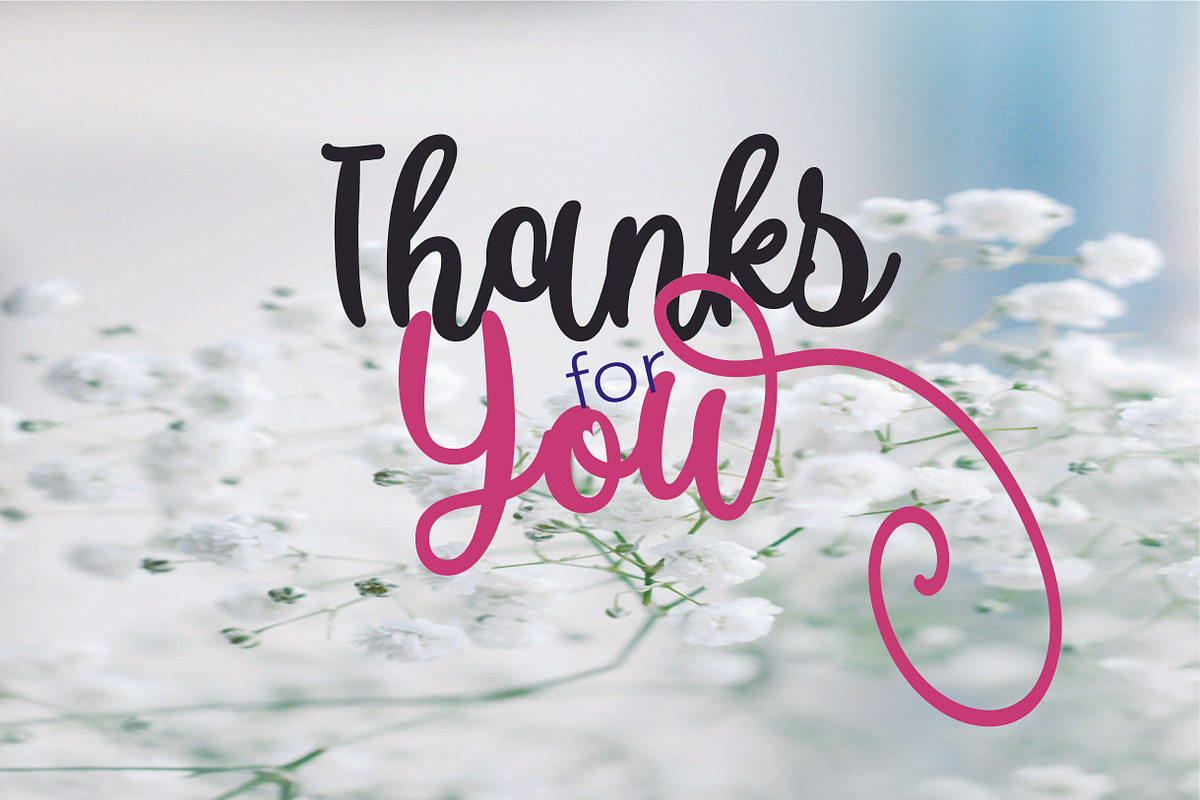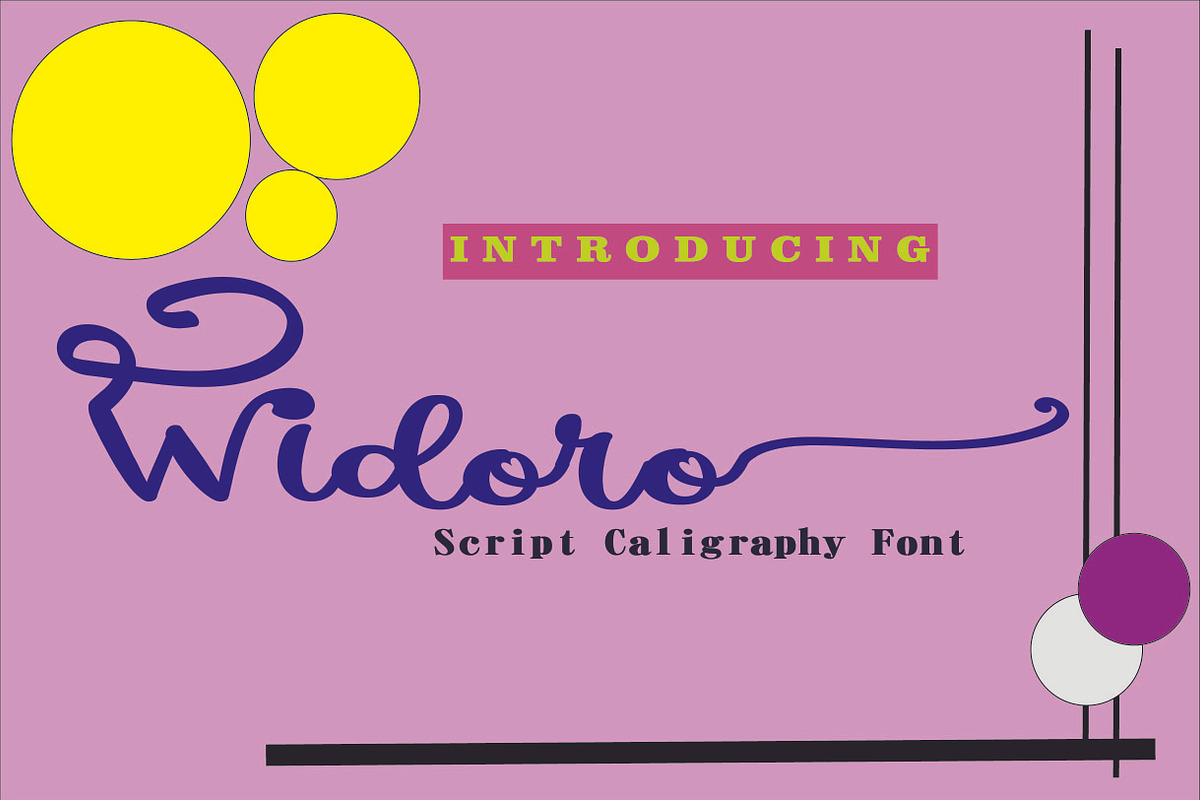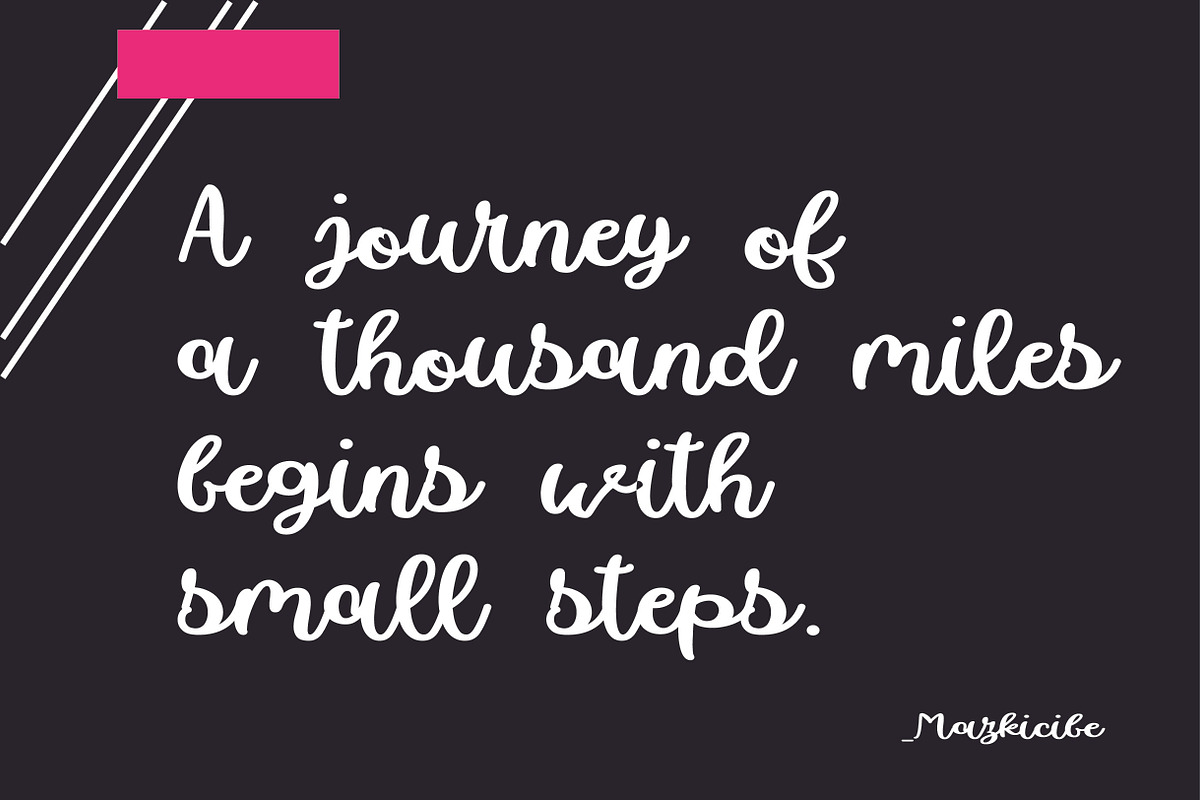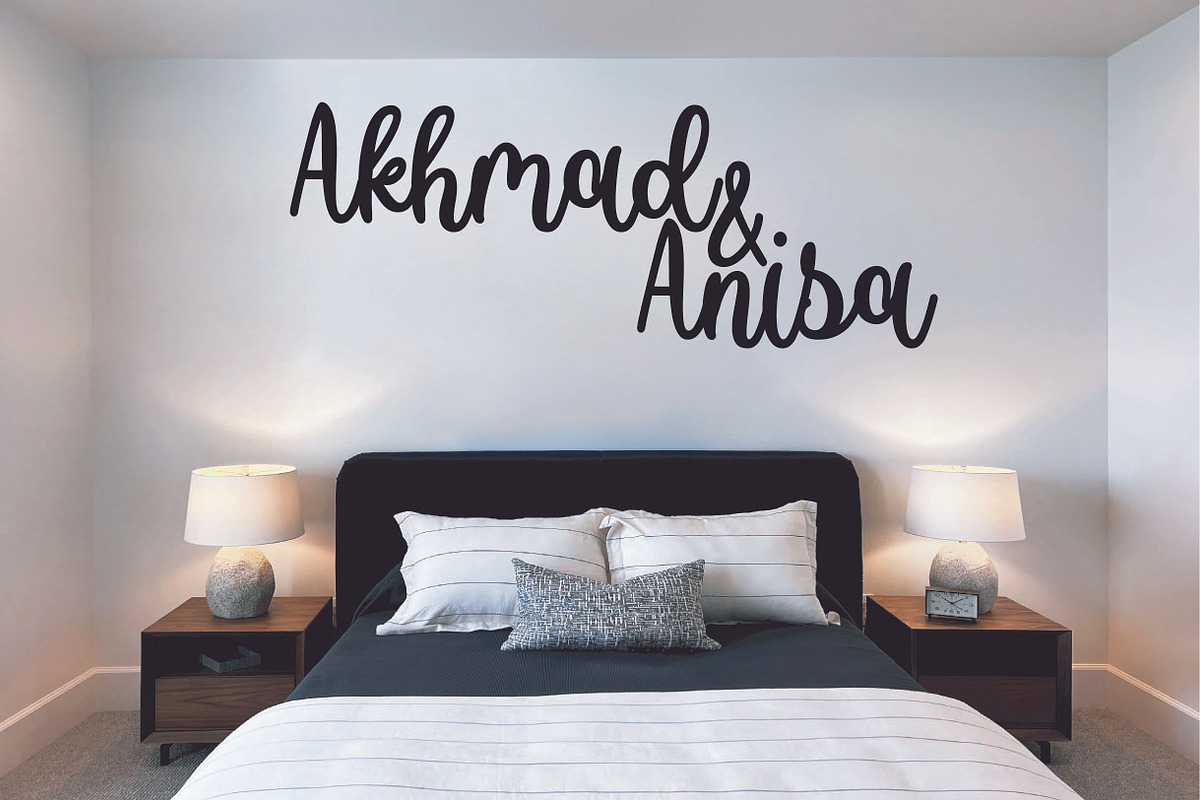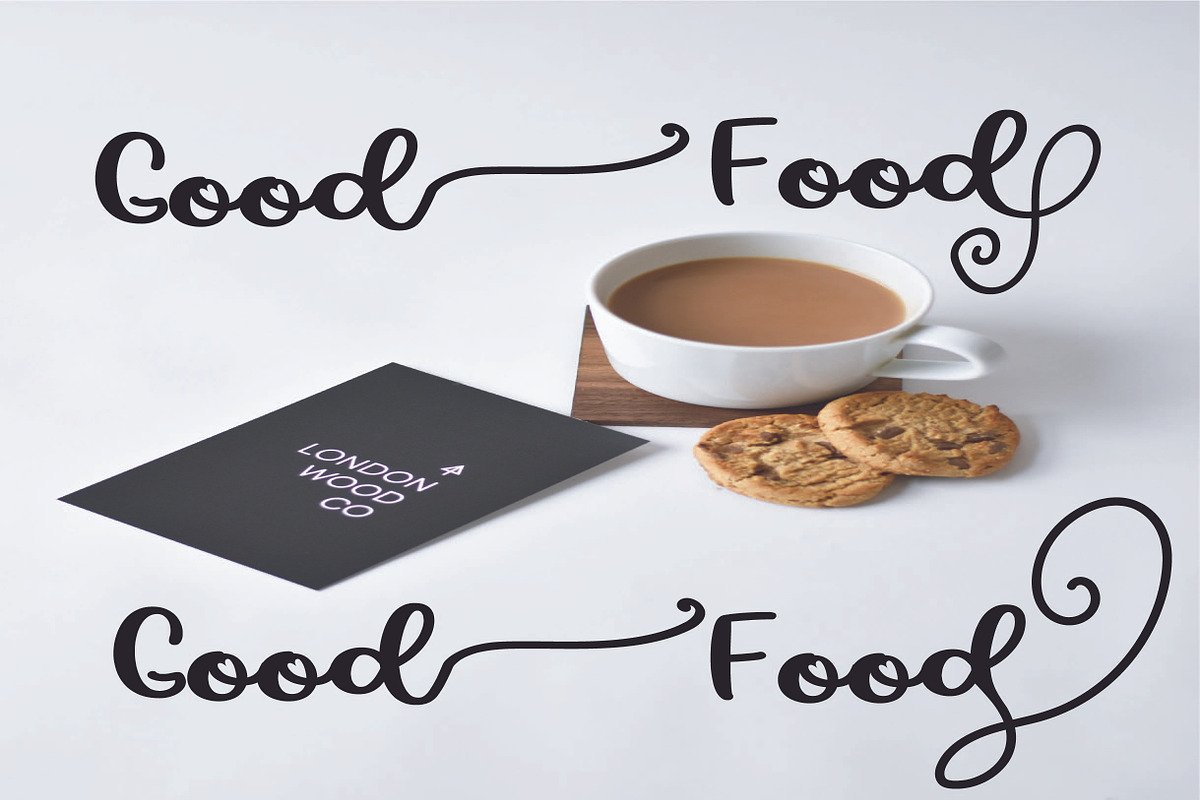
Widoro
Widoro Font is a Script Caligraphy and modern font combined with a sweet touch and beautifully curved each letter.
Widoro Font is great for: Wedding invitations, fashion magazines, logos, signatures, and suitable for watermark photography.